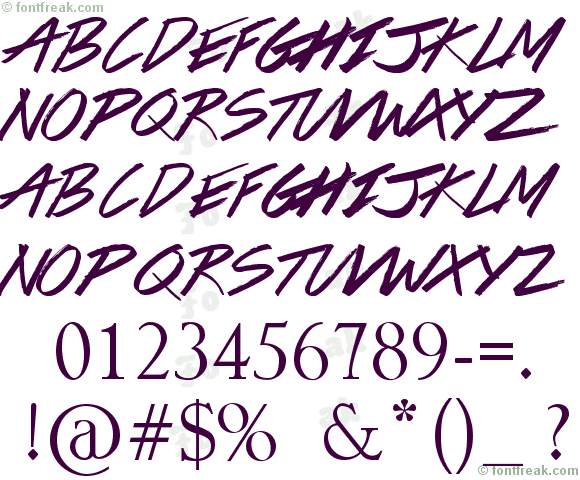
Colors Of Autumn
The "Colors Of Autumn" font, designed by Jonathan S. Harris, is a stunning display script that encapsulates the essence of the fall season. With its fluid strokes and organic curves, this typeface brings a sense of warmth and approachability, making it a perfect choice for a variety of creative projects. The font features a moderate stroke weight with dynamic contrast, giving it a lively character that draws the eye. The spacing is thoughtfully designed to enhance readability while maintaining an artistic flair, and the slightly irregular lines add a handmade touch that resonates with the beauty of nature.
This font is particularly well-suited for use in wedding invitations, where its romantic style can create an inviting atmosphere. It also shines on seasonal greeting cards, capturing the essence of autumn with its warm, earthy vibe. Additionally, "Colors Of Autumn" works wonderfully for restaurant menus, especially those that emphasize farm-to-table concepts or cozy, family-style dining experiences. Graphic designers and content creators will find this font an excellent asset for branding projects, as it communicates a sense of authenticity and charm.
What sets this font apart is its ability to evoke emotion and connection through its design. It captures the spirit of autumn in a way that feels both modern and timeless, making it a valuable addition to any designer's toolkit. Whether you're creating seasonal graphics or establishing a cozy brand identity, "Colors Of Autumn" offers a unique character that stands out in a crowd.